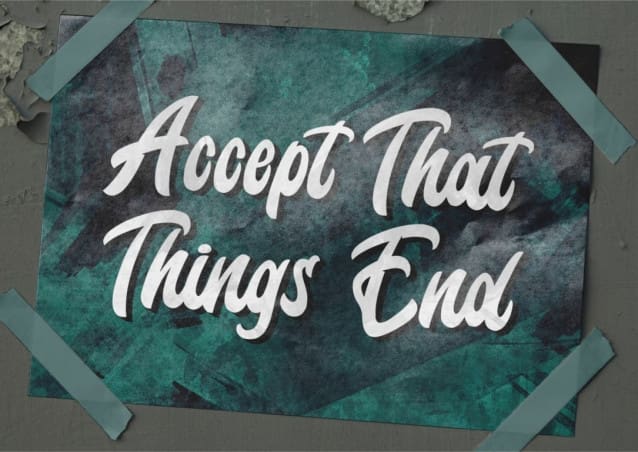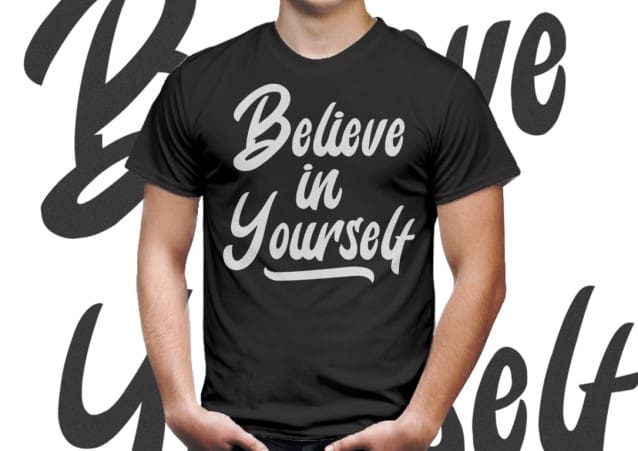
Hasmita Font
Hasmita Font, a font that draws inspiration from the intricate art of handwritten letters and incorporates the vibrant aesthetics of StreetArt and UrbanStyle. Embrace the artistic charm of Hasmita as it infuses your artwork, branding, posters, or any creative project with a captivating urban sophistication. Unleash your imagination with Hasmita and witness your designs burst to life with an irresistible energy.